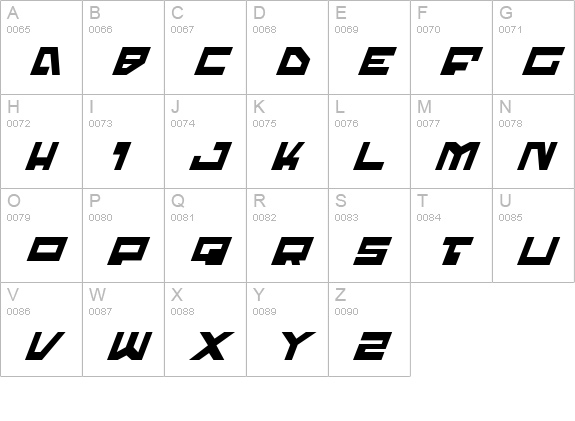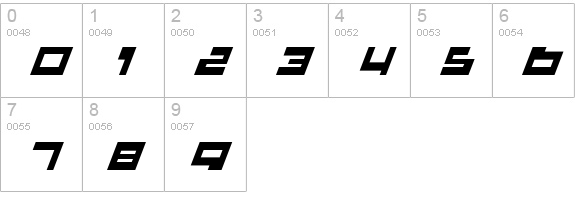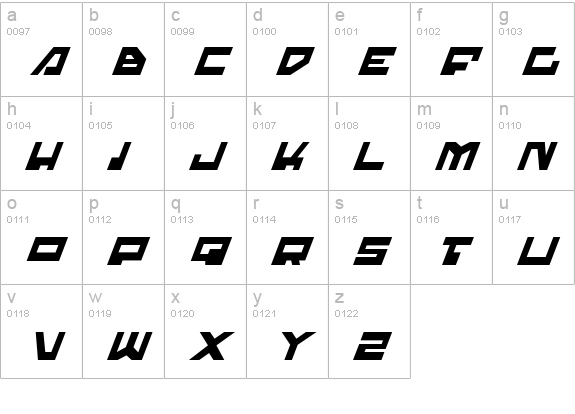
Trajia Italic is a distinctive, italic variant in the Trajia typeface family \xE2\x80\x94 well suited to design and typography projects.
Trajia Italic font is a sophisticated and elegant typeface that exudes a sense of modernity and style. Its sleek and slanted design adds a touch of flair to any project, making it perfect for fashion magazines, luxury branding, and upscale events. The italicized characters flow gracefully, creating a sense of movement and dynamism on the page. What sets Trajia Italic font apart is not just its stunning aesthetic appeal, but also the fact that it is available for free download at FontsMarket.com. This means that you can elevate your designs with this high-quality typeface without having to worry about any cost. Whether you're a professional graphic designer or a hobbyist looking to add a touch of sophistication to your creations, Trajia Italic font is a versatile and accessible choice that is sure to impress.